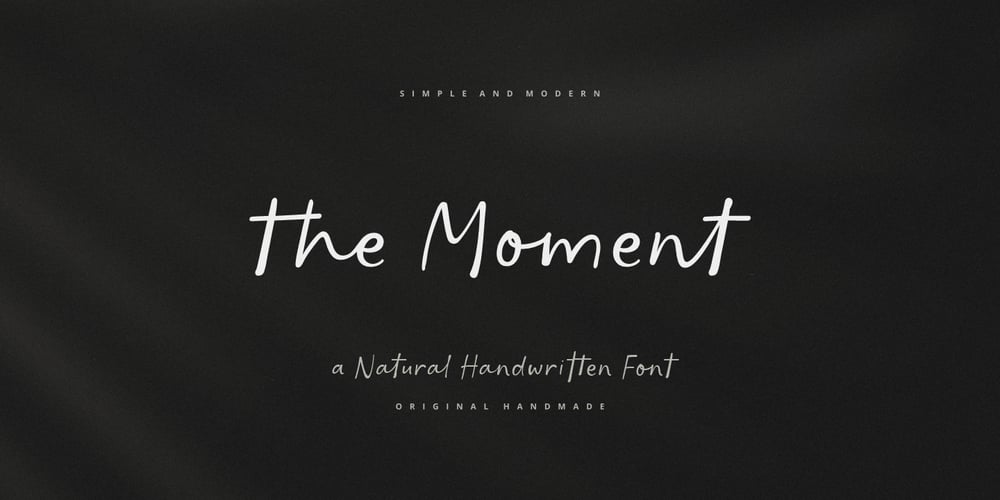
Moment Handwriting Font Family was designed by Burhan Afif and published by HansCo. Moment Handwriting contains 1 styles and family package options. The Moment Handwriting Font is a cute and modern handwriting font carefully created with a touch of elegance. Whether you’re looking for fonts for Instagram or calligraphy scripts for DIY projects, this font will turn any creative idea into a true piece of art!. This font is perfect also for creating print templates like posters, branding, quotes, blog titles, fashion, invitations, greeting cards, business cards, clothing, stationery or anything else.Features : Uppercase & Lowercase Numbers & Punctuation Multilingual Ligature Enjoy!